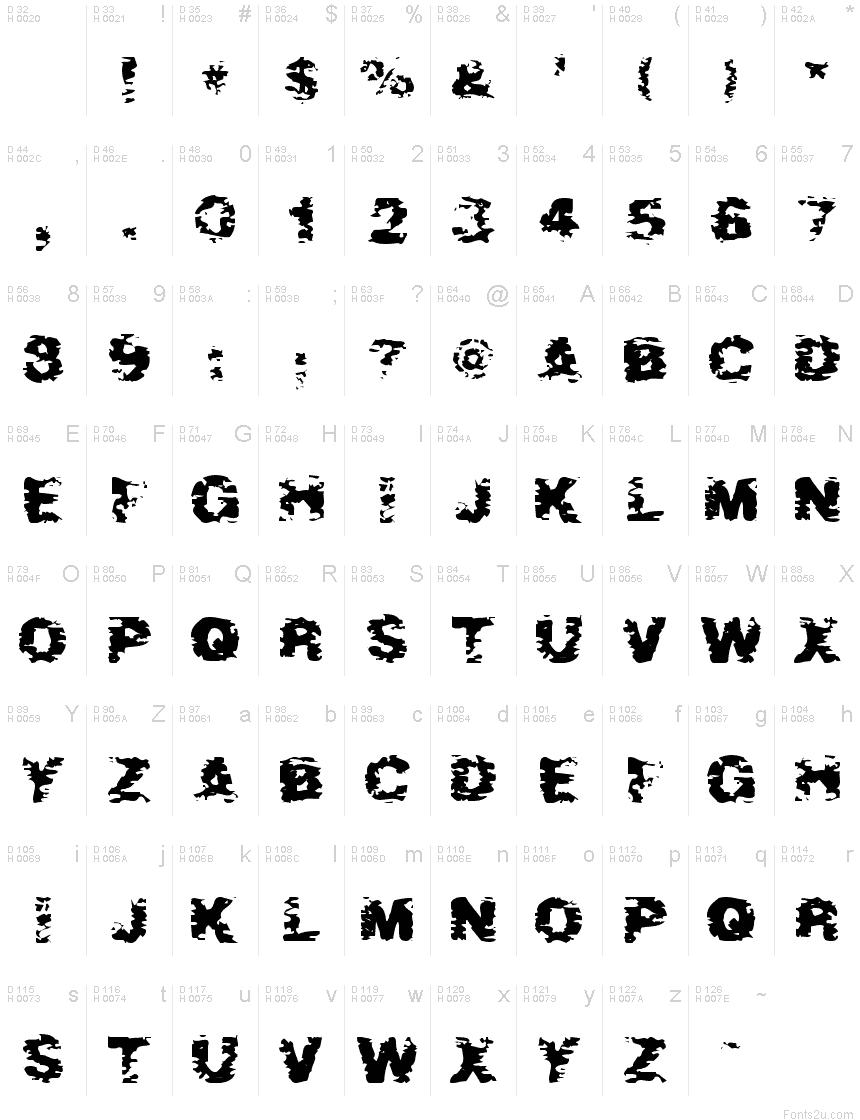
After Shok
After Shok font by Dave Kellam is a free eroded display typeface that looks like it’s been blasted apart and left to smolder. Chunky letterforms crack, splinter, and bleed into the white space around them, creating a chaotic, acid-eaten texture that hits hard at a glance. It feels noisy and scorched, like ink that exploded on the page and then dried in jagged shards.
Using After Shok font, you can push horror posters, metal band logos, game titles, underground flyers, escape-room branding, and Halloween merch into full-on catastrophe mode. The dense, irregular silhouettes hold up well at large sizes, so let this free font handle the headline while a clean sans-serif supports the smaller text. Keep the color palette simple—black on stark white or neon on deep black—to let the eroded shapes do all the screaming.